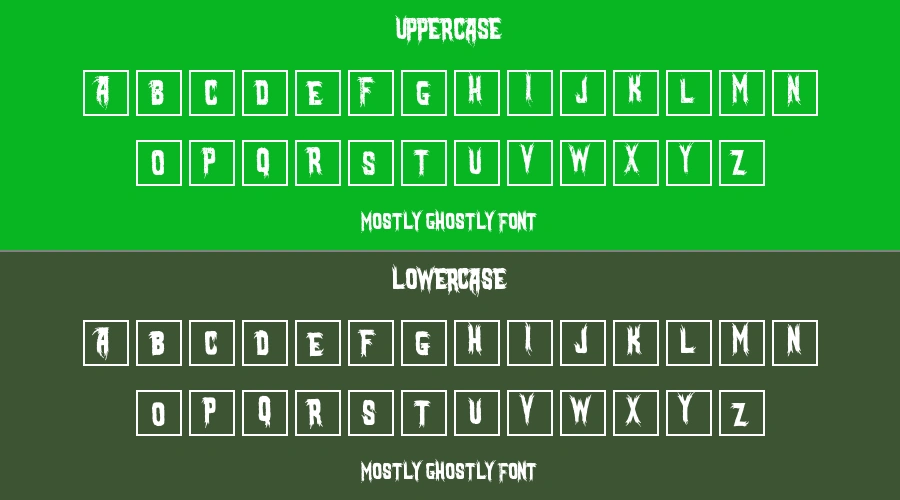
About Mostly Ghostly Font
Mostly Ghostly Font embodies typographic excellence through its masterful combination of impactful forms and clarity. Created for product naming, this typeface delivers exceptional expressiveness and literary appropriateness across all applications. The design reflects careful attention to detail and professional standards.
Advanced capabilities include distinctive dramatic weight and versatile oldstyle figures, giving designers creative control. When used in product names, Mostly Ghostly Font exhibits remarkable personality transfer. The harmonious balance between character width and institutional acceptance sets this typeface apart.